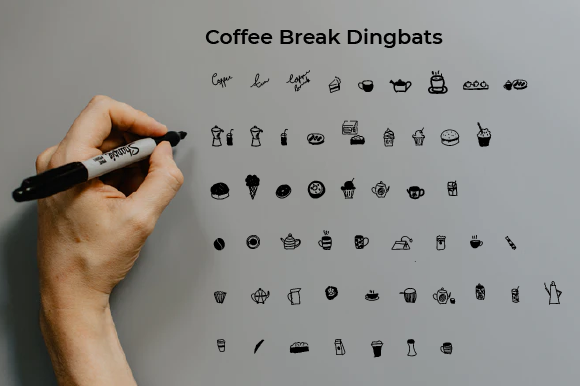
The Ultimate Creative Companion: Unleashing the Power of Coffee Break Font
I’ll never forget the design moment that led me to discover the Coffee Break font. I was working on a project for a client who wanted a playful, eye-catching look for their branding. As I scrolled through my font library, I stumbled upon Coffee Break, and it was love at first sight! The quirky, fun design instantly resonated with my creative vision, and I knew I had found the perfect companion for my project.
Coffee Break is more than just a font – it’s a design game-changer. Here’s what I love about it:
- ✨ Versatility: Coffee Break is a dingbats font that can be used in a wide range of creative projects, from branding and advertising to crafting and DIY designs.
- ✅ Ease of use: The font is incredibly easy to use, even for those who are new to design or typography.
- 🎉 Fun and playful: Coffee Break adds a touch of whimsy and fun to any design, making it perfect for projects that require a lighthearted approach.
While Coffee Break is an amazing font, there are a few quirks to keep in mind:
- 🤔 Limited character set: As a dingbats font, Coffee Break has a limited character set compared to traditional fonts. This means you won’t find standard letters and numbers, but instead, a wide range of fun and creative glyphs.
- ⚠️ OpenType features: While Coffee Break supports OpenType features, some applications may not display these features correctly. Be sure to test the font in your design software before finalizing your project.
The Design Story Behind Coffee Break
Coffee Break was designed with creatives in mind. The font’s creator wanted to craft a unique, playful design that would add a touch of fun to any project. Inspired by the whimsical world of coffee culture, Coffee Break is the perfect companion for designers, crafters, and creative hobbyists who want to add a little excitement to their work.
| What type of font is Coffee Break? | Coffee Break is a dingbats font, which means it features a collection of symbols, glyphs, and icons rather than standard letters and numbers. |